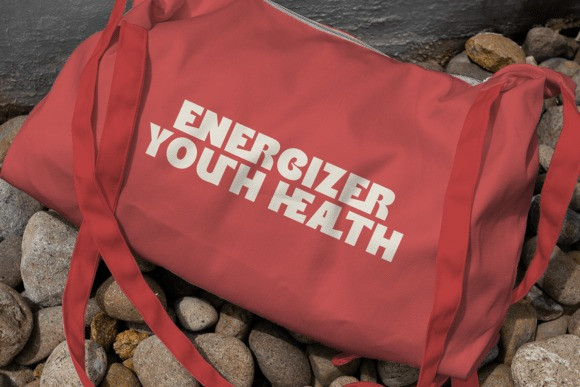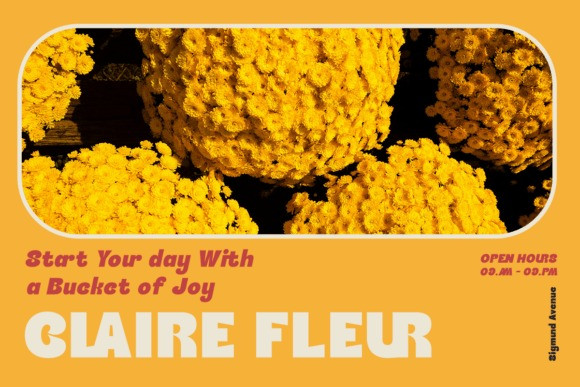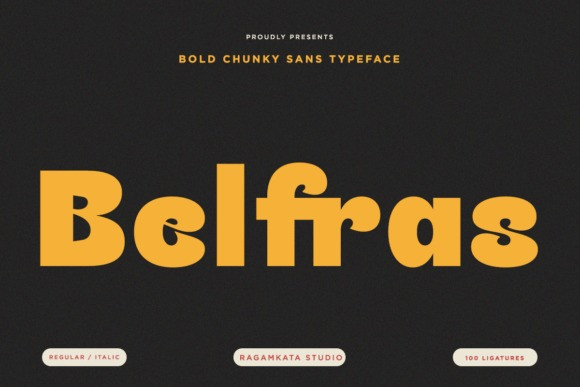
Belfras Font
Belfras Font a bold, chunky, and undeniably charismatic sans-serif typeface that combines powerful presence with a friendly, rounded disposition.The Belfras font is designed to make a strong visual statement, utilizing heavy weight and soft, organic curves to achieve a unique blend of modern impact and approachable warmth. It’s a versatile display Belfras typeface that’s perfect for headlines, logos, and high-impact branding.
This eye-catching Belfras font boasts an impressive set of over 100 ligatures, allowing for sophisticated typographic customization and fluid text flow, adding immense value and creative depth to your designs. Available in regular and italic styles, this modern sans-serif is crafted for superior legibility at large sizes while maintaining a distinctive character. Use it to bring confidence and a touch of playful sophistication to corporate identity, editorial design, and product packaging.
Perfect for logos, posters, headlines, and social media visuals, this font suits a wide range of branding projects. Its distinctive style guarantees your designs stand out in any setting.